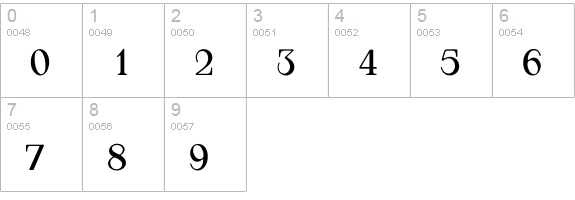
AppleyardLightTab is a sleek and modern font that exudes elegance and sophistication. With its clean lines and stylish curves, this font is perfect for adding a touch of class to any project. The slim and light design of AppleyardLightTab makes it ideal for use in a variety of applications, from branding and logos to invitations and social media graphics. What's even better is that AppleyardLightTab is available for free download at FontsMarket.com, making it accessible to everyone looking to elevate their design projects without breaking the bank. Don't miss out on the opportunity to enhance your creations with the timeless appeal of AppleyardLightTab font. Download it today and start creating stunning visuals that stand out from the rest.